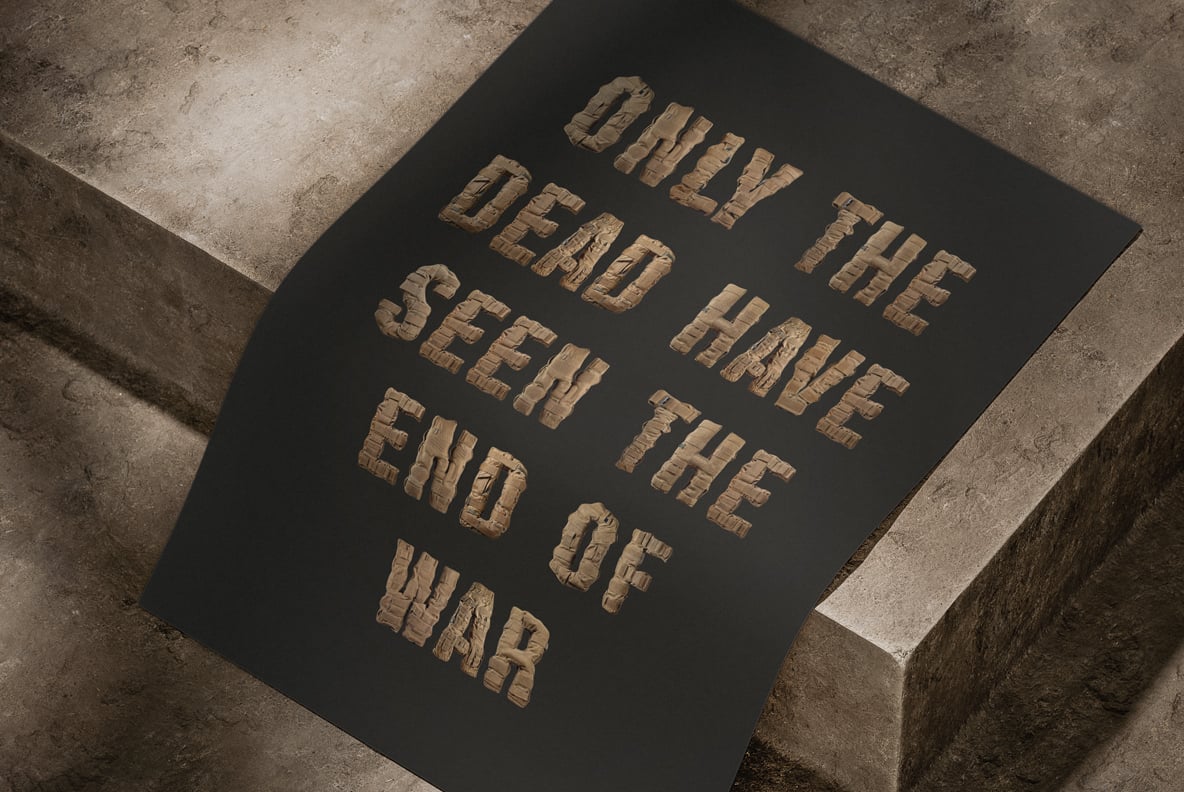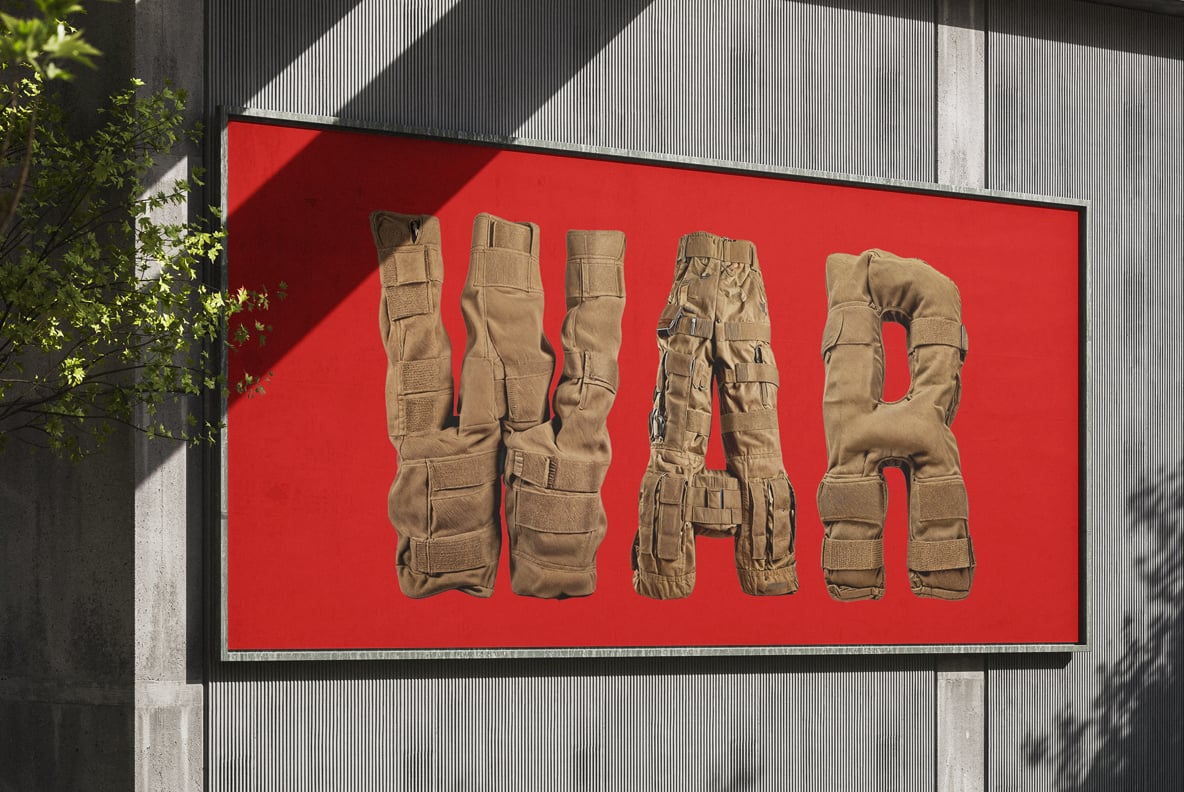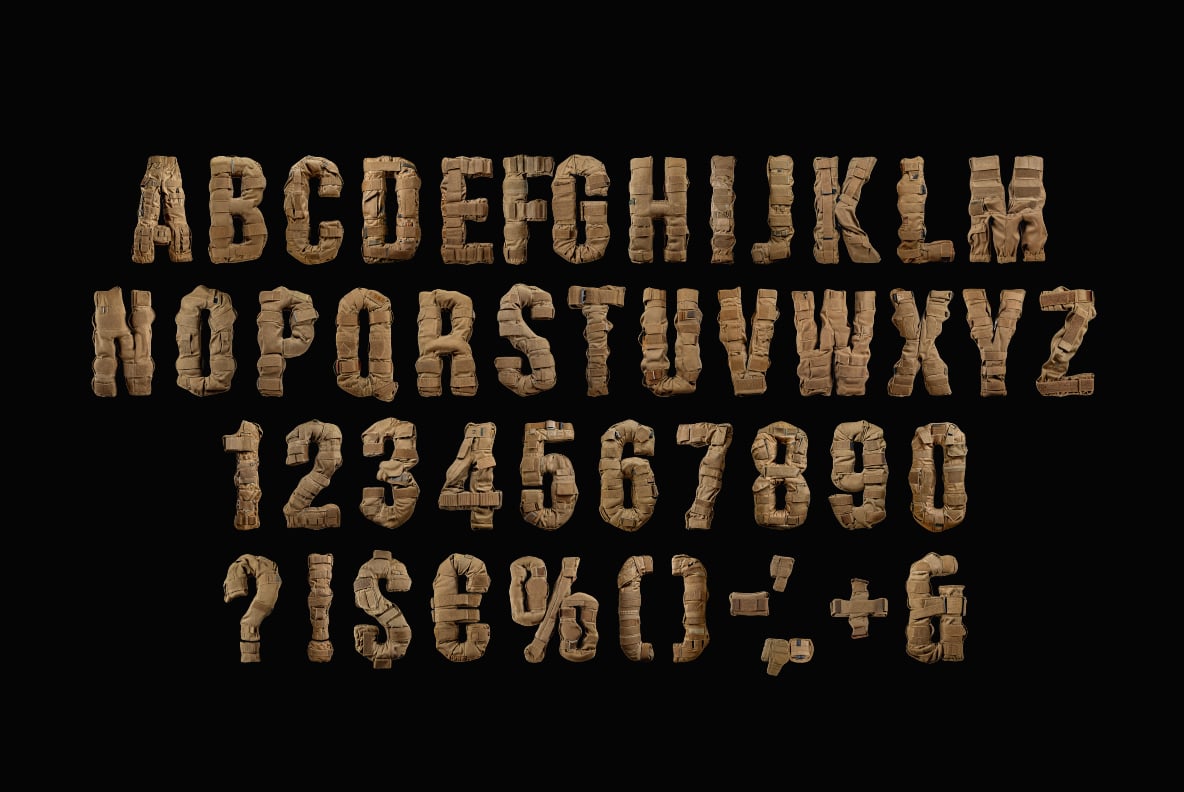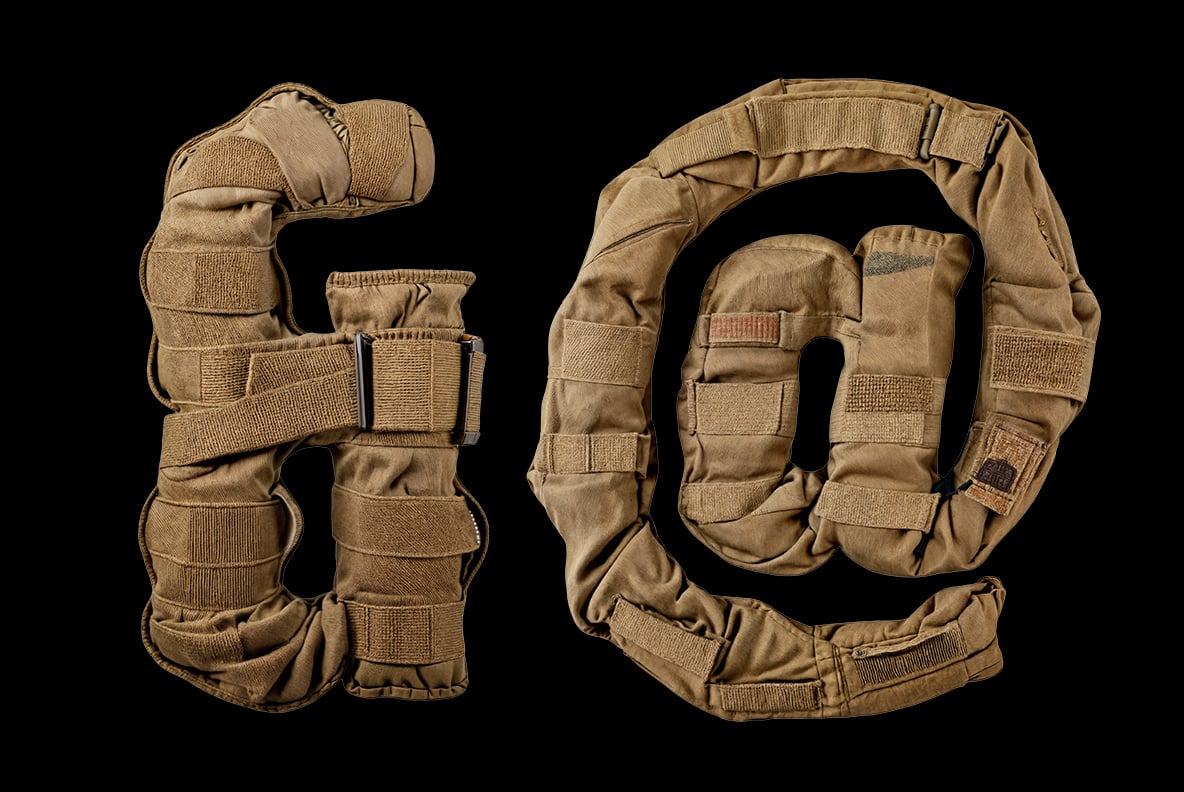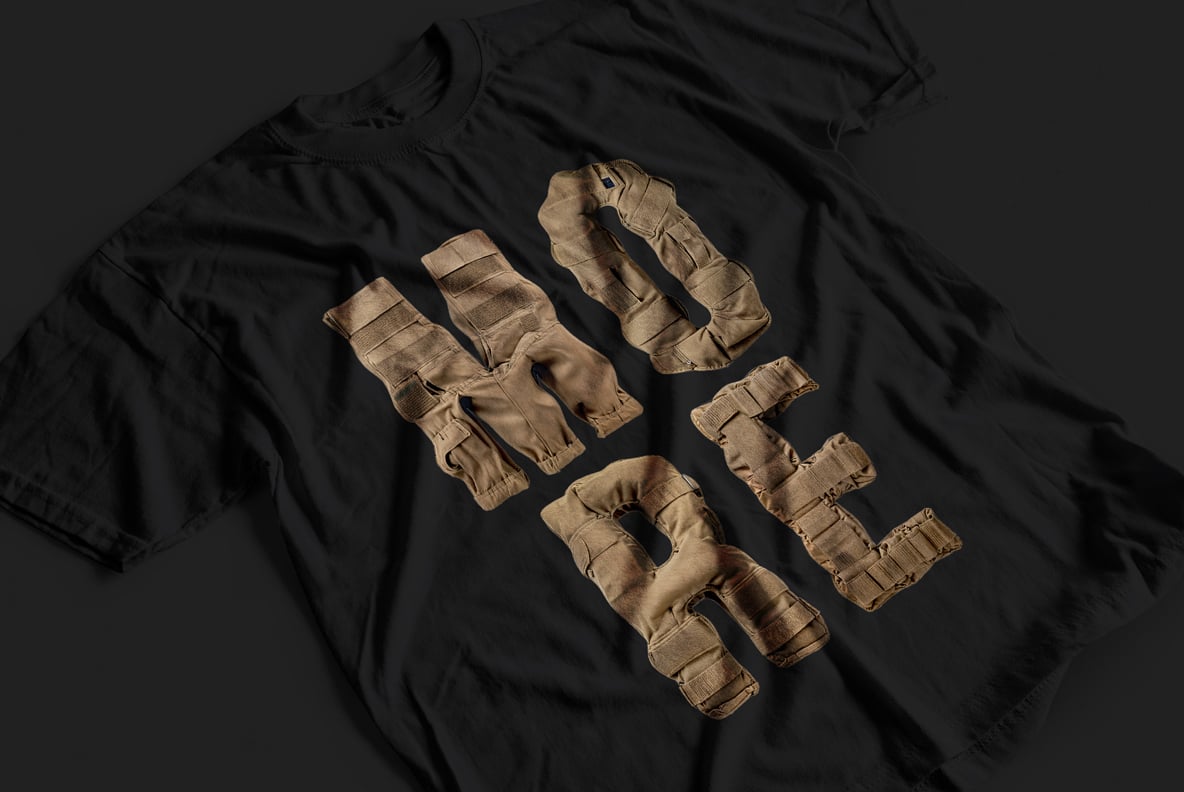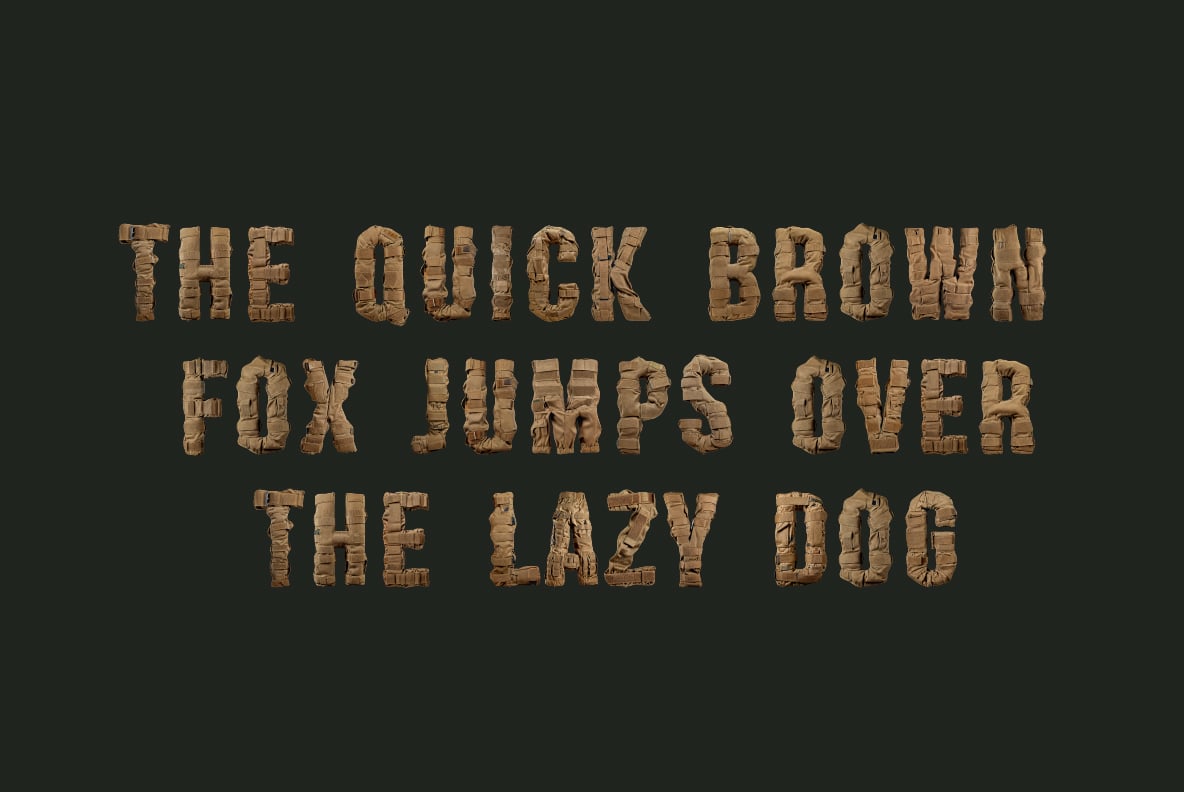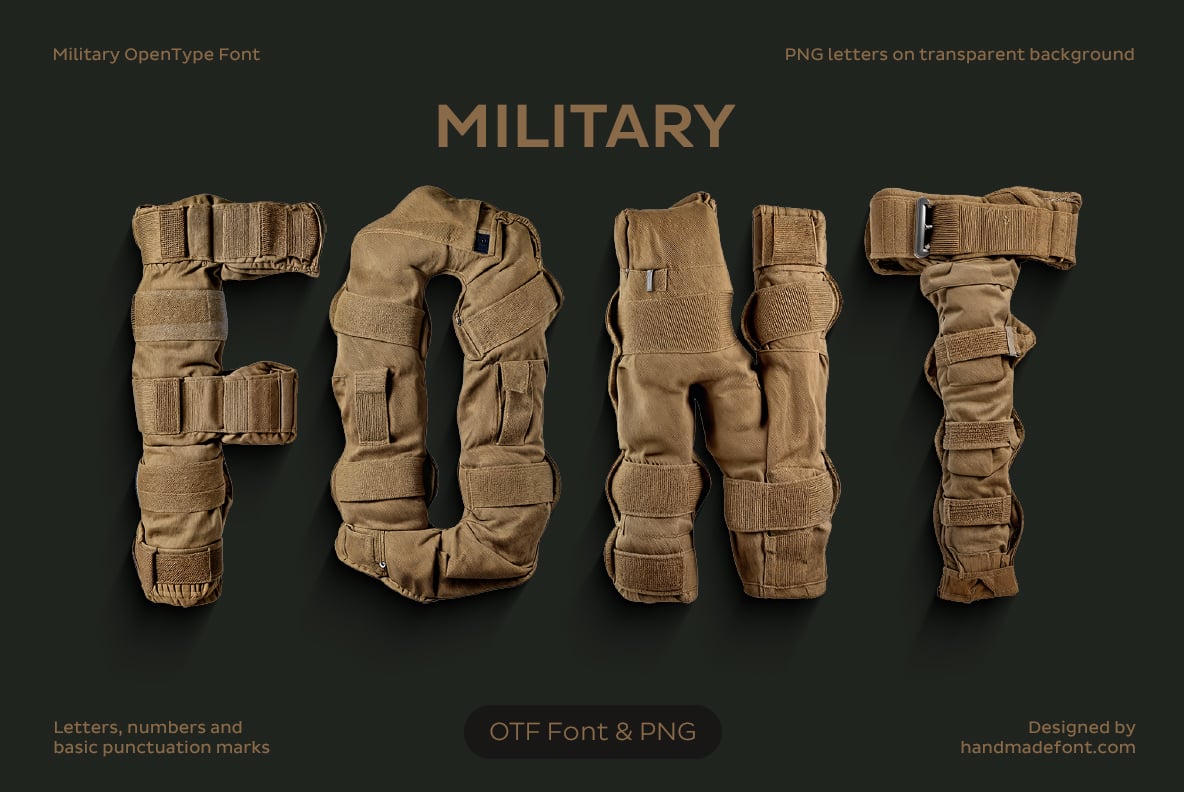
Military Font
The Military Font is a bold and rugged typeface designed from real tactical fabric and uniform textures. Each letter looks as if it’s built for the battlefield — strong, durable, and full of character. Perfect for posters, movie titles, video games, or branding projects that need a sense of strength, discipline, and realism. The font combines detailed stitching, khaki tones, and protective gear aesthetics to create an authentic military atmosphere. Every letter was photographed and crafted individually, resulting in a high-resolution OpenType-SVG font ideal for professional designers who want raw texture, power, and visual impact in their creative work.